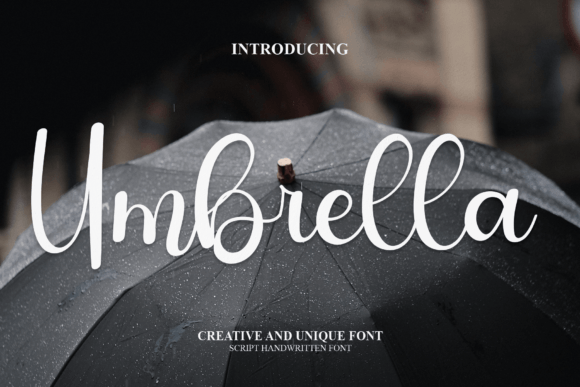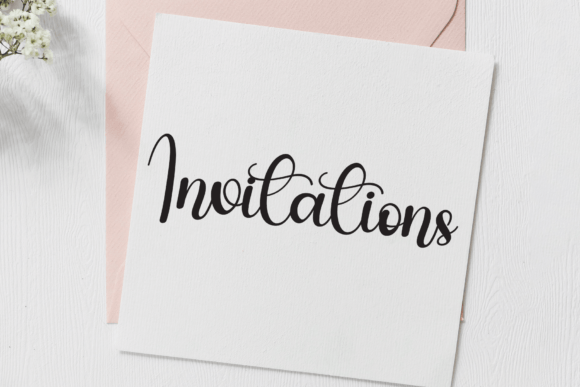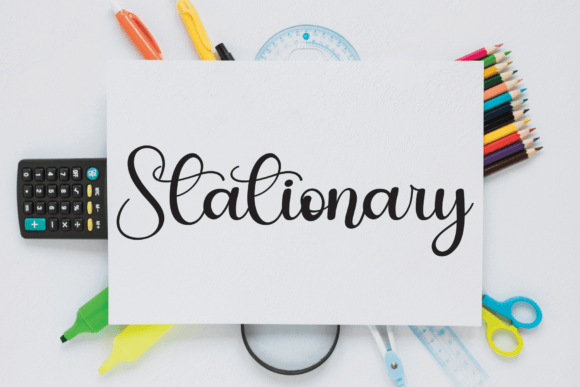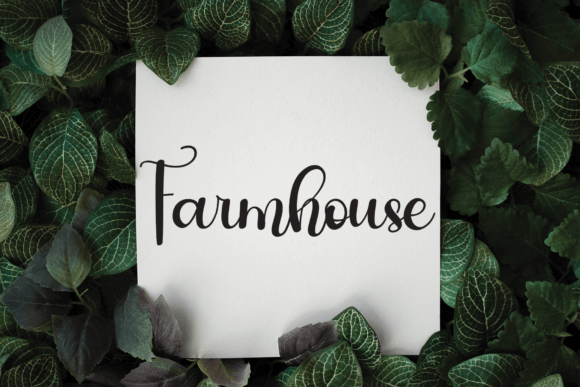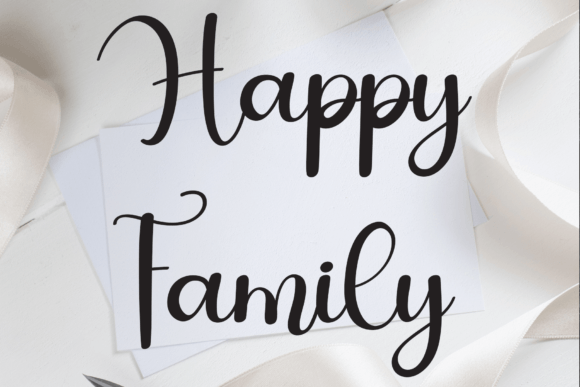
Umbrella Font
Introducing a one-of-a-kind handwritten font, characterized by its elegant touch and crafted perfectly for your beloved projects. Prepare to be captivated by its entirely distinct and timeless style, inviting you to fall in love and infuse your creativity to craft designs that are nothing short of spectacular.
What sets this font apart is its unparalleled uniqueness. Every stroke and curve is thoughtfully designed, offering a fresh and innovative perspective on the art of typography. It’s more than just a font; it’s a design statement, a manifestation of creativity poised to elevate your projects to new and extraordinary heights.
The handwritten charm of this font introduces a personal and authentic touch to your designs, forging a deep connection with your audience. It transcends the boundaries of mere letters, becoming an expressive tool that tells a story of elegance and refinement. It’s the ideal choice for projects that demand a touch of sophistication and a timeless aesthetic.
In a world where trends come and go, this font stands as a symbol of enduring style. Its appeal isn’t confined to the transient nature of design fads; instead, it radiates a timeless charm that ensures your creations remain relevant and impactful across different eras. It becomes a trusted companion on your creative journey, promising enduring beauty in every application.
Discover the versatility of this font and fall in love with its ability to seamlessly adapt to various design contexts. Whether it’s branding, invitations, posters, or any creative endeavor, this font transforms your ideas into visually striking and spectacular designs.
In summary, this unique handwritten font is more than just a typographic tool; it’s an invitation to explore the boundless possibilities of creativity. Its elegance, distinctiveness, and timeless appeal make it an indispensable asset for your favorite projects, turning each design into a showcase of spectacular artistry. Embrace the extraordinary and let this font be the muse for your most spectacular designs.